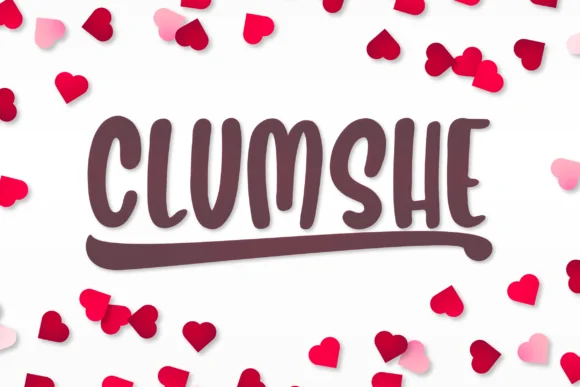
Clumshe Font
The Clumshe Font is perfect for quirky branding, children’s books, greeting cards, playful packaging, and fun social media graphics. Its hand-drawn, whimsical style adds a lighthearted and creative touch to any design, making it ideal for projects that want to convey charm and personality.
What makes the Clumshe Font Free Download so exciting is its unique, playful character. Each letter feels lively and imperfectly perfect, giving your text a friendly, approachable vibe that stands out. It’s a font that brings joy and energy to your designs, making every project feel personal and engaging.
The Clumshe Font family includes multiple variations such as Regular, Bold, and Italic styles. These options give designers the flexibility to mix and match for dynamic layouts, ensuring your compositions remain fun, cohesive, and visually appealing.